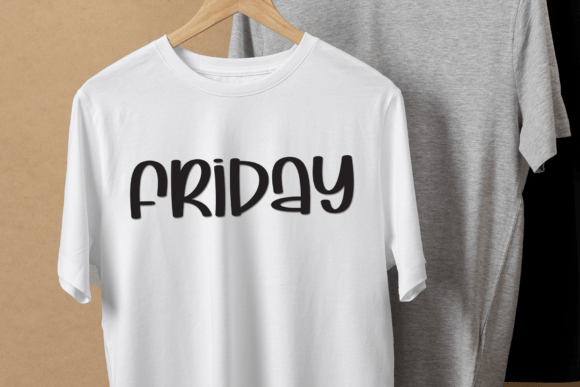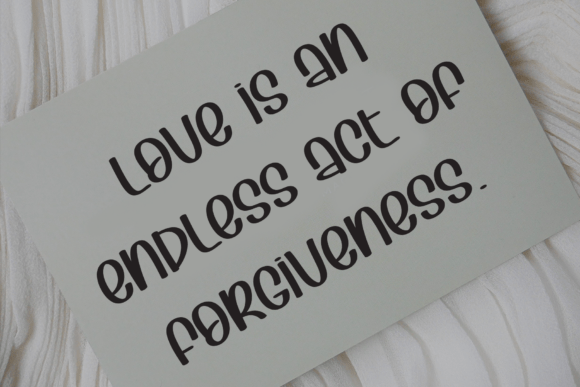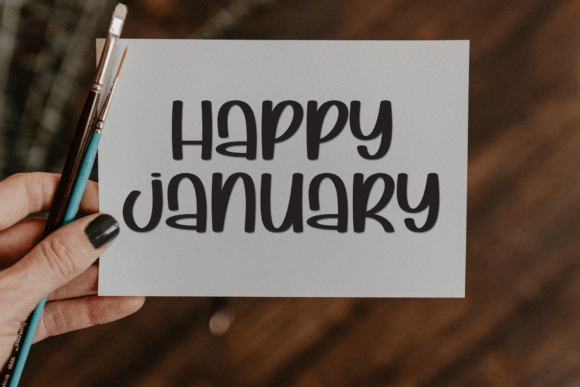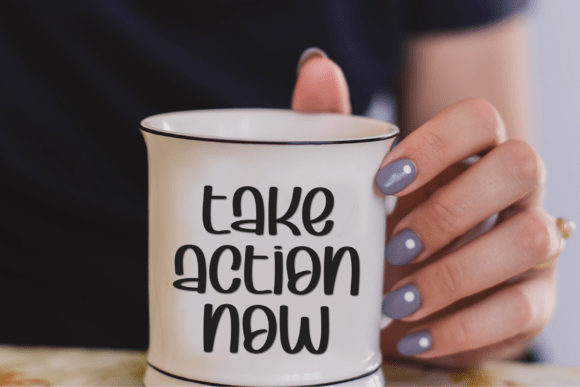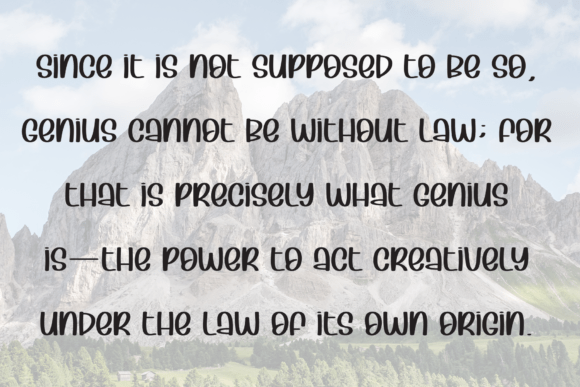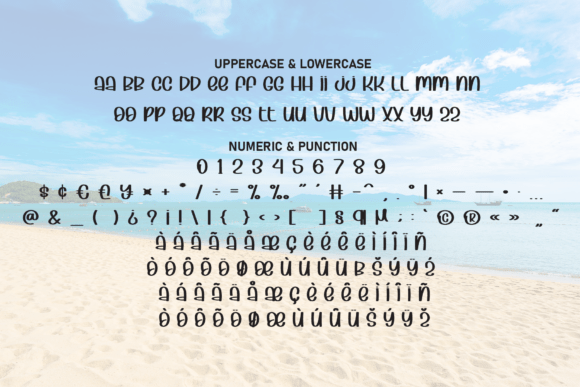
A Moment of Inspiration: The Birth of a New Font
Have you ever been strolling along the beach on a lazy Sunday morning, feeling the warm sun on your skin and the cool breeze in your hair, when suddenly a burst of creativity strikes you? Perhaps it’s the sound of the waves, the smell of the salty air, or the sight of seagulls soaring overhead. Whatever it is, it’s that moment of pure inspiration that led us to discover the Beach Sunday Font – a charming handwritten display font that radiates both sweetness and friendliness.
This delightful typeface is perfect for crafting personalized wedding invitations, unique cards, and other special designs that demand a touch of whimsy and fun. For designers, the Beach Sunday Font is a valuable asset that adds an exuberant and playful vibe to any project. Its unique charm and character make it an ideal choice for those looking to create truly one-of-a-kind designs that leave a lasting impression.
Beach Sunday Font Key Features
- Font Family: Beach Sunday is a script font family that includes 6 styles: Regular, Italic, Bold, Bold Italic, Outline, and Fill.
- Unique Characteristics: Beach Sunday font features a unique, handwritten style with a relaxed, casual feel, making it perfect for creative projects and designs that require a touch of personality.
- Language Support: Beach Sunday font supports a wide range of languages, including Latin, Cyrillic, and Greek alphabets, making it a versatile choice for multilingual designs.
Beach Sunday Font Review
As a designer, I’ve had the chance to work with Beach Sunday Font, and I’m excited to share my honest thoughts on this beautiful script font.
- Unique Character: Beach Sunday Font has a distinct, laid-back vibe that’s perfect for creating a relaxed atmosphere in your designs.
- High-Quality Renditions: The font is available in various weights and styles, making it easy to find the perfect fit for your project.
- Playful and Creative: The font’s playful nature makes it an excellent choice for branding, invitations, and other creative projects.
- Limited Legibility: In smaller text sizes, Beach Sunday Font can be difficult to read, making it less suitable for body text.
- Lack of Consistency: The font’s inconsistent letter spacing can make it challenging to achieve a uniform look.
- Not Suitable for Formal Text: Beach Sunday Font’s casual nature makes it less suitable for formal documents, such as resumes or academic papers.
Overall, Beach Sunday Font is a great addition to any designer’s toolkit, but it’s essential to use it judiciously. It shines in creative projects, but may not be the best choice for formal or high-legibility text.
The Beach Sunday Font is perfect for creating beach-themed designs, such as:
- Summer vacation posters
- Beach party invitations
- Surfing or beach sports promotional materials
Remember to pair the Beach Sunday Font with a clean and simple design to make your message stand out.